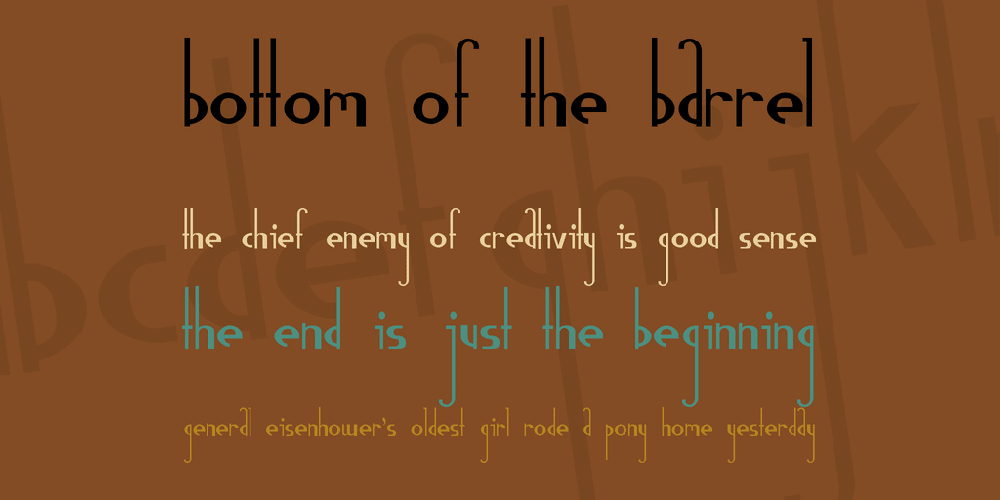
Gauss Jordan Font
(Alphabet (caps=lower) and some punctuation, some foreign/special) — This one is named after mathematicians Gauss and Jordan who invented an important algorithm in Matrix Algebra. Matrix Algebra is pretty boring, though, which is why I created this font in my notebook while in Matrix Algebra class. No numbers, ironically.
• Designer: Divide By Zero